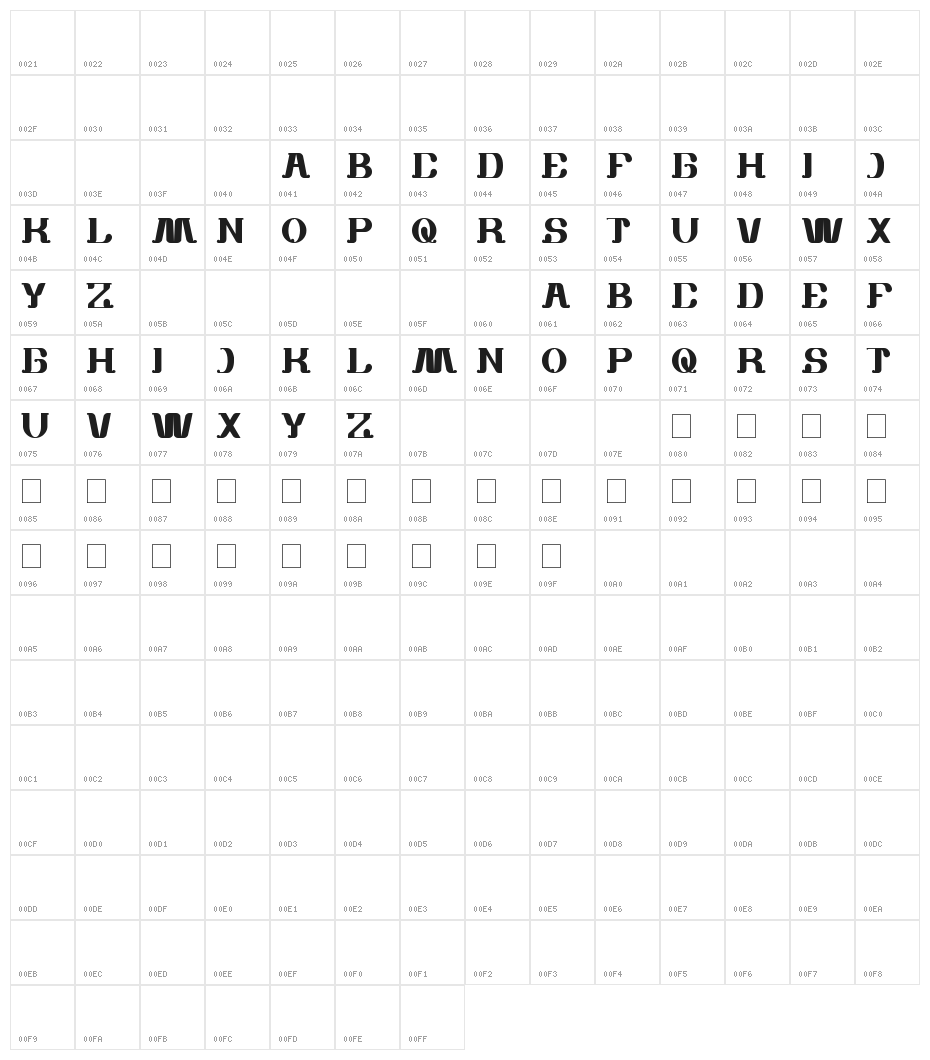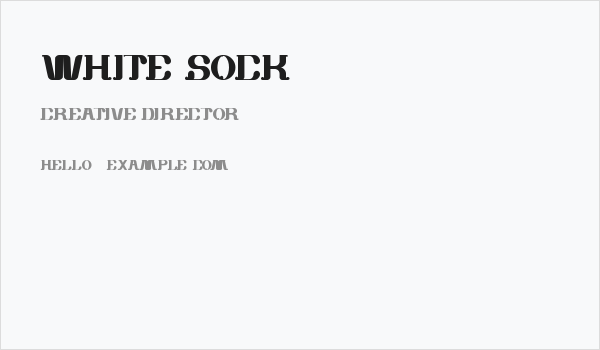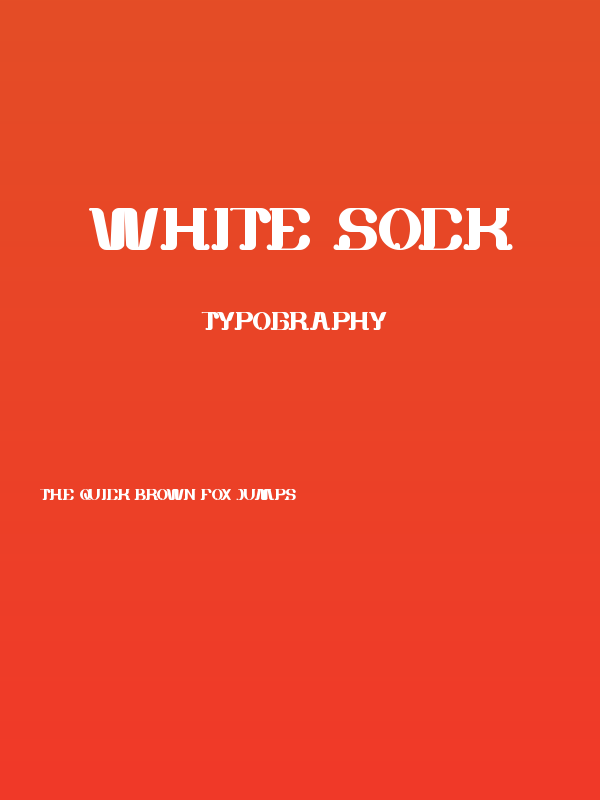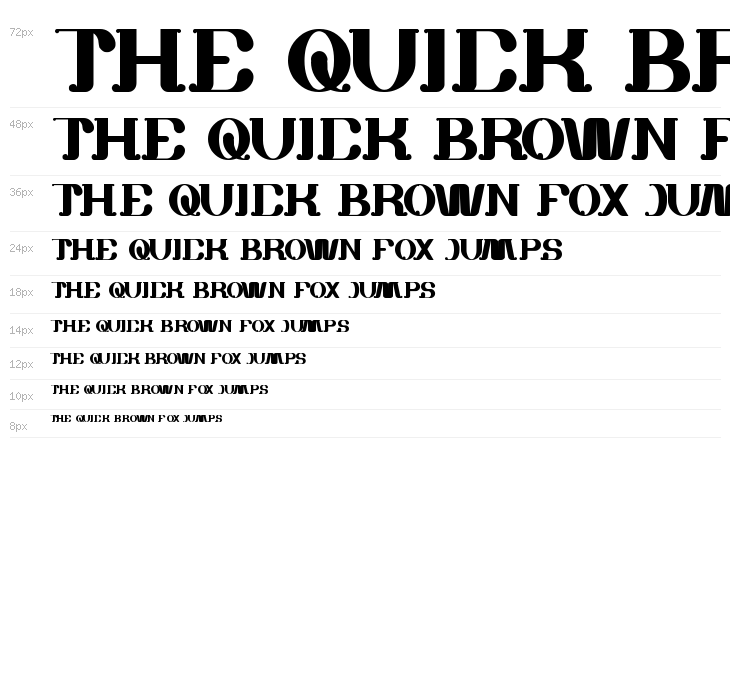
white sock Font
white sock Description
This font features a bold and striking design with a unique blend of geometric and decorative elements. The characters are crafted with thick strokes and rounded edges, giving them a playful yet structured appearance. The font exhibits a high contrast between thick and thin lines, enhancing its visual impact. The uppercase letters are particularly distinctive, with some characters incorporating unexpected curves and angles that add to the font's charm. The overall style is modern with a touch of vintage flair, making it suitable for eye-catching headlines and creative projects.
Overall StyleModern, Vintage
Proposed ProjectsIdeal for branding, poster design, and creative advertising campaigns.